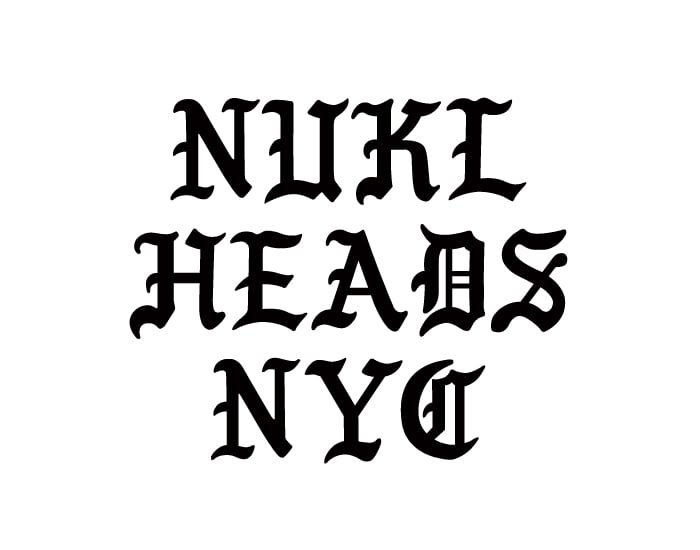
Nemek Gothic Font - Tom grunwald's nemek gothic is a digital version of those letters. Nemek gothic font family series mainly provide black and other font styles.
Tom grunwald's nemek gothic is a digital version of those letters. Nemek gothic font family series mainly provide black and other font styles.
Nemek gothic font family series mainly provide black and other font styles. Tom grunwald's nemek gothic is a digital version of those letters.
Nemek Gothic Font Family Series Mainly Provide Black And Other Font Styles.
Tom grunwald's nemek gothic is a digital version of those letters.